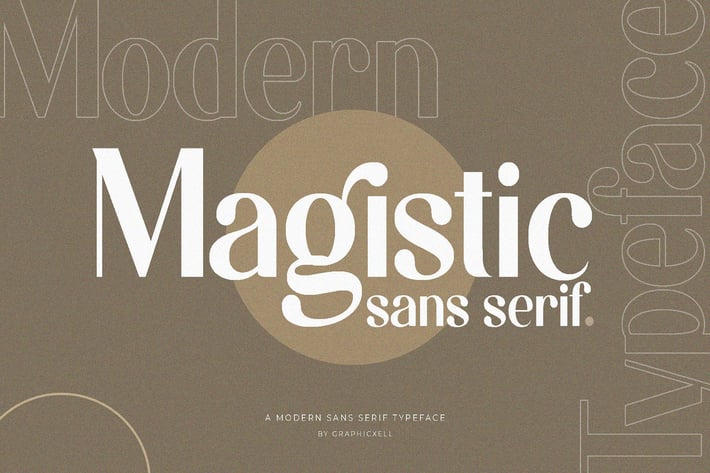
Magistic Sans Serif Font
Magistic Sans Serif Font – Clean and Modern Typeface
The Magistic Sans Serif Font is a clean and modern typeface that offers a fresh and minimalist look. Its simple lines and balanced shapes make it an excellent choice for a wide range of design projects. Whether you need a font for branding, websites, posters, or presentations, Magistic provides clarity and style that stand out.
Because the font has uniform strokes and clear spacing, it ensures easy readability in all sizes. As a result, it works well for both headlines and body text. Moreover, its sleek design adds a professional and contemporary feel without overwhelming the content.
In addition, Magistic Sans Serif is very versatile. It fits perfectly with modern design trends and pairs nicely with serif fonts to create interesting contrasts. Furthermore, it adapts well to digital and print media, giving your projects a polished and consistent look.
The font’s geometric forms and smooth curves create a balanced and approachable tone. This makes it suitable for creative businesses, startups, tech brands, and any project that requires a straightforward but stylish typeface.
To sum up, the Magistic Sans Serif Font offers:
- Clean and simple shapes
- Balanced letter spacing for readability
- Modern and minimalist style
- Versatile use in digital and print
- Professional and fresh appearance
Overall, Magistic is a smart choice for designers who want a font that is easy to read and looks modern. It helps create designs that are both elegant and accessible, making your work look sharp and current.
The Magistic Sans Serif Font is a clean and modern typeface that offers a fresh and minimalist look. Its simple lines and balanced shapes make it an excellent choice for a wide range of design projects. Whether you need a font for branding, websites, posters, or presentations, Magistic provides clarity and style that stand out.
Because the font has uniform strokes and clear spacing, it ensures easy readability in all sizes. As a result, it works well for both headlines and body text. Moreover, its sleek design adds a professional and contemporary feel without overwhelming the content.
In addition, Magistic Sans Serif is very versatile. It fits perfectly with modern design trends and pairs nicely with serif fonts to create interesting contrasts. Furthermore, it adapts well to digital and print media, giving your projects a polished and consistent look.
The font’s geometric forms and smooth curves create a balanced and approachable tone. This makes it suitable for creative businesses, startups, tech brands, and any project that requires a straightforward but stylish typeface.
To sum up, the Magistic Sans Serif Font offers:
- Clean and simple shapes
- Balanced letter spacing for readability
- Modern and minimalist style
- Versatile use in digital and print
- Professional and fresh appearance
Overall, Magistic is a smart choice for designers who want a font that is easy to read and looks modern. It helps create designs that are both elegant and accessible, making your work look sharp and current.